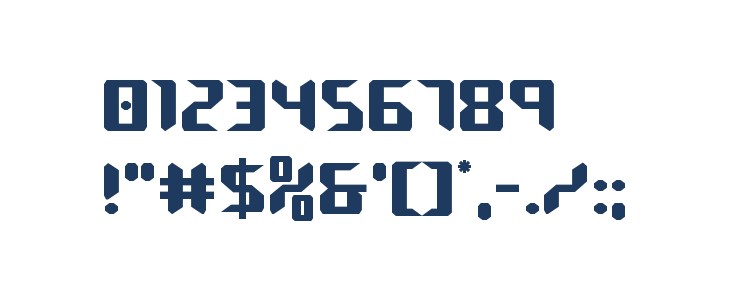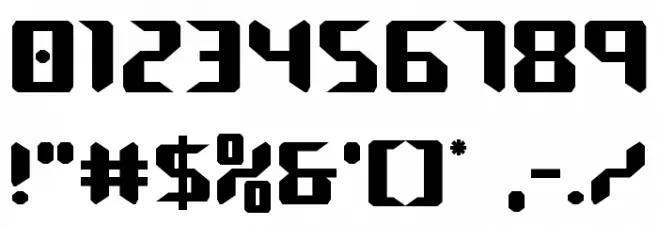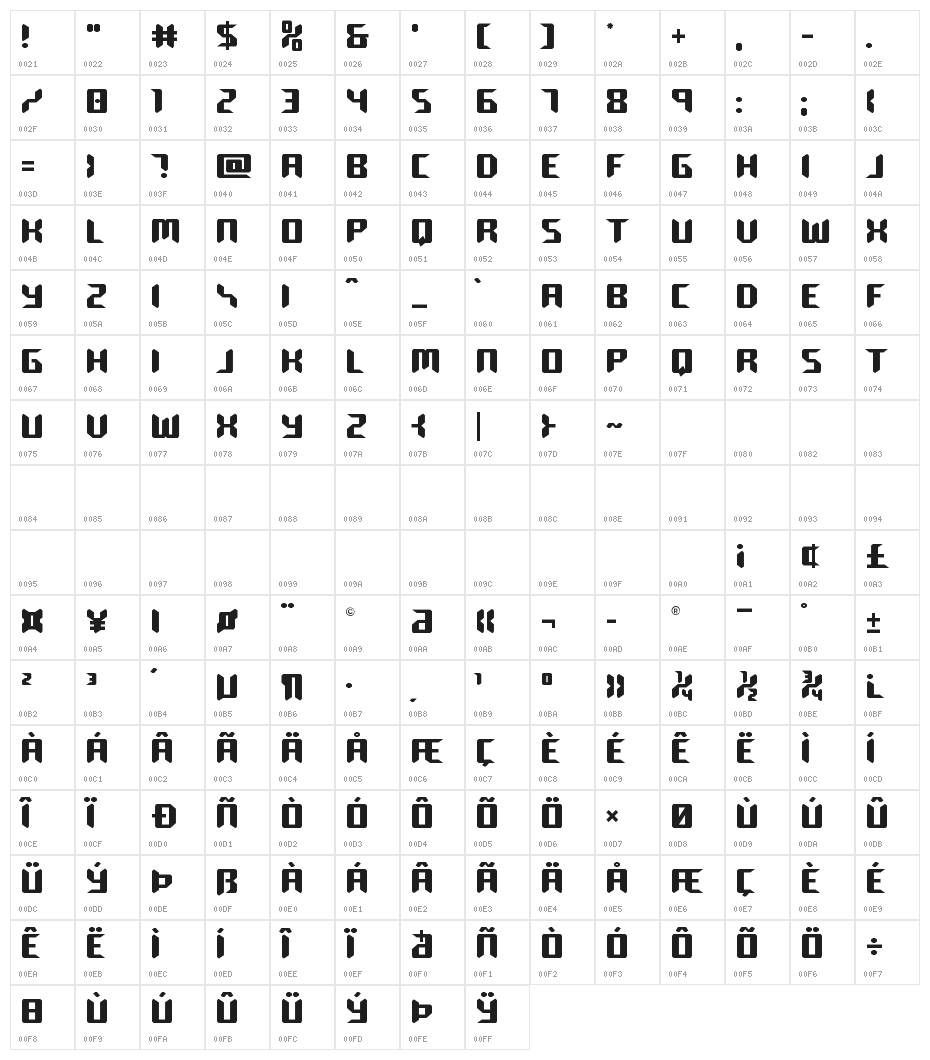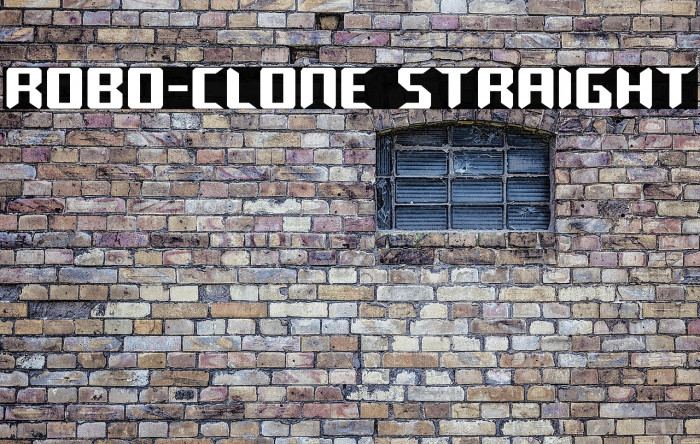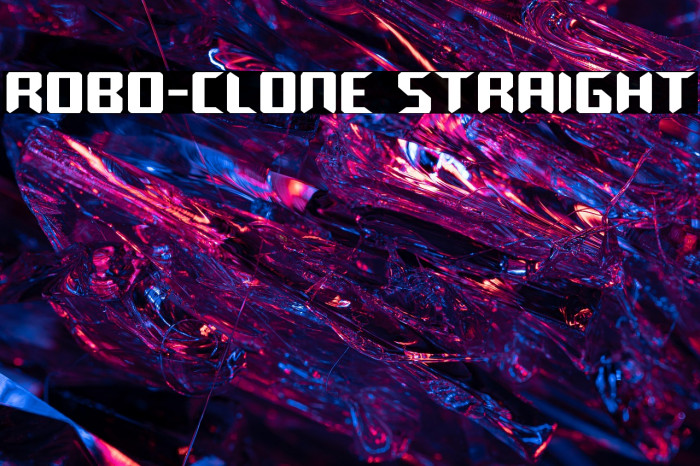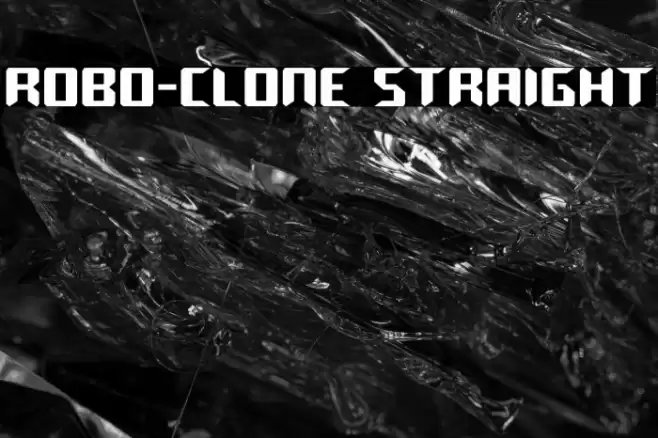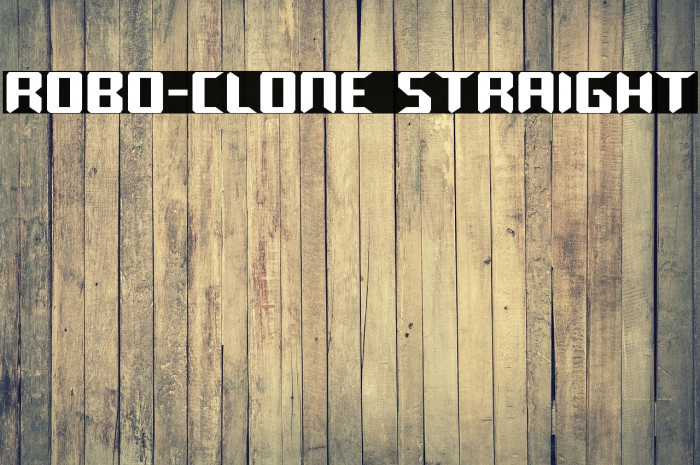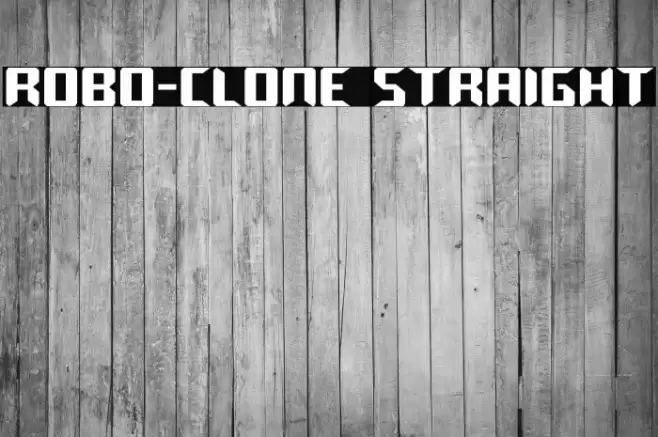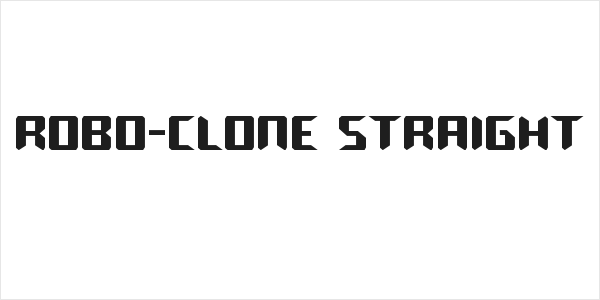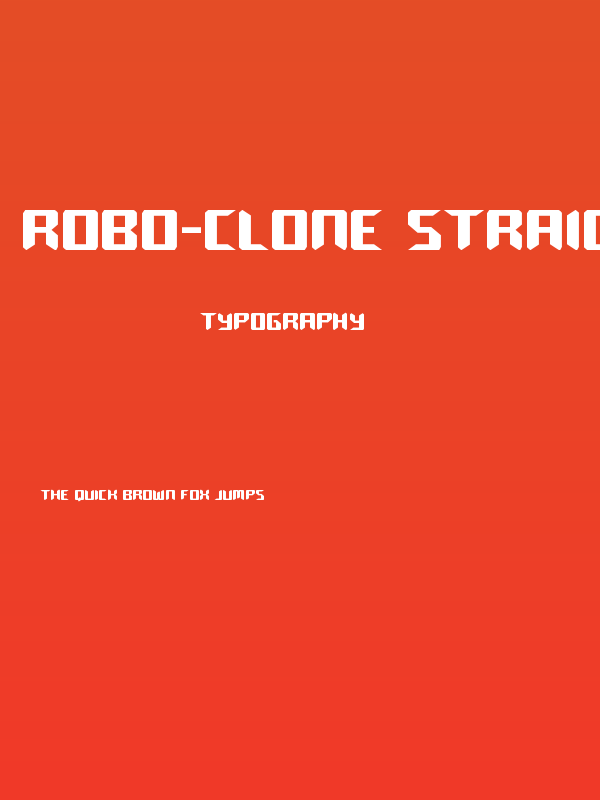
Robo-Clone Straight Font
Robo-Clone Straight Description
This font features a bold, geometric design with sharp angles and a futuristic aesthetic. The characters are constructed with straight lines and angular cuts, giving them a robotic and mechanical appearance. The uppercase and lowercase letters maintain a consistent style, with a uniform height and width that contributes to a cohesive look. The numbers and special characters follow the same design principles, ensuring visual harmony across all elements. This font's distinct style makes it suitable for projects that require a modern and technological feel.
| Proposed Projects | Ideal for technology branding, sci-fi movie posters, video game titles, and digital interfaces. |